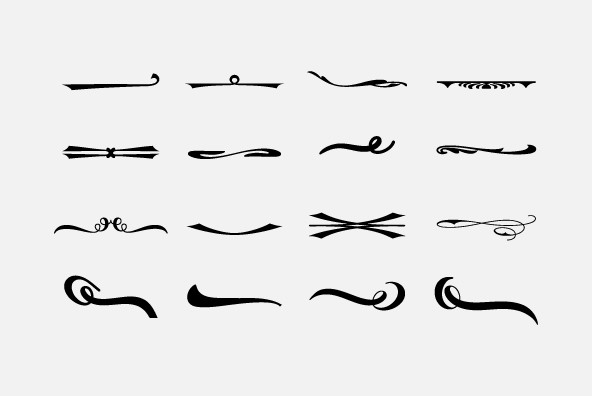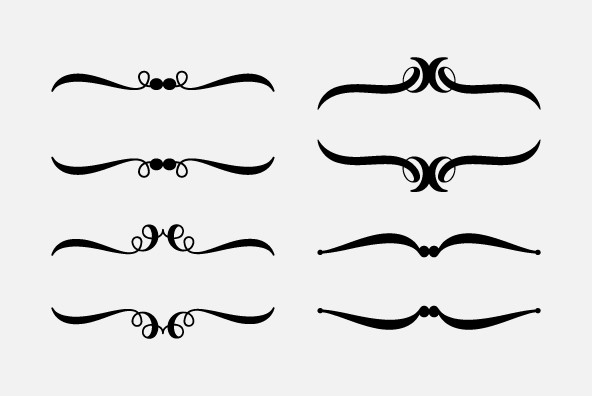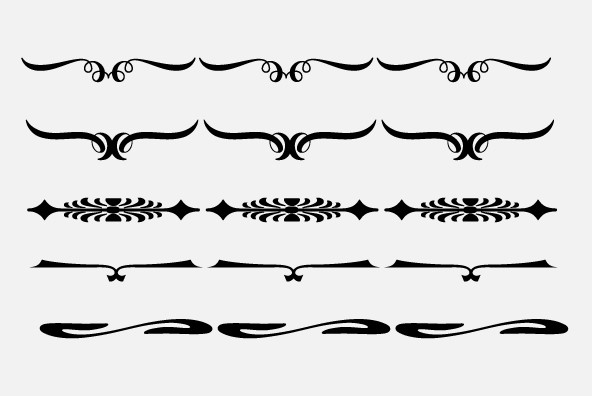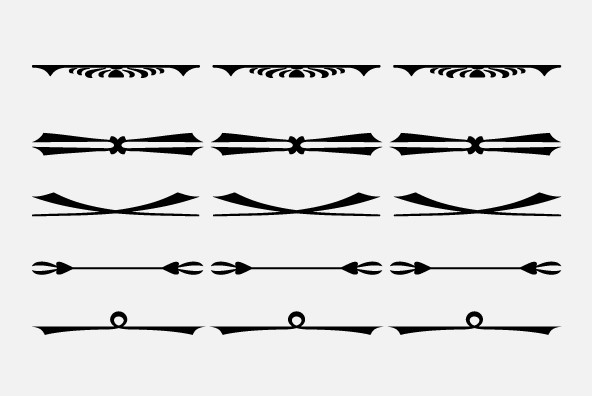
Rasgos Escritura Nuevos
Rasgos Escritura Nuevos (108 tails) was selected and freely interpreted from the vignettes catalog by Fundicion Gans published in 1920. You can combine these ornaments with your favorite fonts.